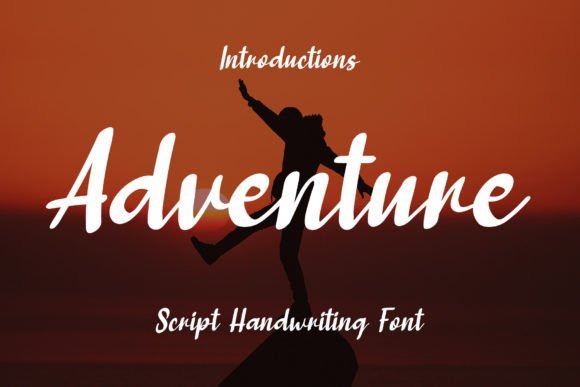
Where Creativity Meets Adventure
Have you ever been scribbling away in a journal, feeling the pen glide effortlessly across the page, and suddenly, a spark of inspiration strikes? It’s moments like these that remind us of the magic of handwritten typography. The Adventure Font is a digital interpretation of that same magic, bringing a charming and elegant touch to your designs.
Whether you’re crafting wedding invitations, designing business cards, or creating quotes, the Adventure Font is the perfect companion for your creative endeavors. Its unique blend of elegance and whimsy makes it a valuable asset for designers looking to add a personal touch to their work.
Key Features of Adventure Font
- Font Family: Adventure Font is a unique, hand-drawn font designed to evoke a sense of adventure and exploration.
- Size: The font comes in multiple weights, ranging from Thin (100) to Black (900), providing flexibility for various design applications.
- Unique Characteristics: Features a distinctive, handwritten style with irregular letterforms, making it perfect for creating a sense of personality and whimsy in designs.
- Kerning and Ligatures: Includes expertly crafted kerning and ligature pairs, ensuring smooth and seamless text rendering even at small font sizes.
Designer Review: Adventure Font
Overall, I think Adventure Font has some exciting qualities that make it a great choice for certain projects. ✨ The font’s unique blend of modern and vintage elements gives it a rugged, adventurous feel that’s perfect for outdoor or travel-related branding.
- ✨ Distinctive letterforms that add visual interest
- ✨ Wide range of weights and styles to choose from
- ✨ Excellent legibility, even at smaller font sizes
- ⚠️ May not be the best choice for text-heavy content, as the font can be overwhelming
- ⚠️ Some users may find the font’s vintage elements too kitschy or over-the-top
- ⚠️ Limited support for non-Latin scripts
Overall, I think Adventure Font is a great choice for projects that need a bold, adventurous feel. While it may not be the best choice for every project, it’s definitely worth considering for the right client or application.
Use Adventure Font to create eye-catching headlines and titles, add a sense of adventure to travel brochures and websites, or create a bold and exciting atmosphere in presentations and reports.
Alternatives to Adventure Font for Designers
Great Vibes Font is a modern, cursive font that exudes a sense of fun and adventure. It’s perfect for creating a playful and energetic atmosphere in designs, especially in social media graphics, posters, and advertising materials.
Compared to Adventure Font, Great Vibes Font is more stylized and has a more pronounced, flowing feel. While Adventure Font is more rustic and textured, Great Vibes Font is sleek and modern.
Playfair Display Font is a luxurious, elegant font that adds a touch of sophistication to designs. It’s ideal for creating high-end branding, invitations, and special occasion materials.
Compared to Adventure Font, Playfair Display Font is more refined and formal. While Adventure Font is bold and playful, Playfair Display Font is sophisticated and elegant.
Carolyna Pro Font is a modern, sans-serif font that’s perfect for creating clean and minimalist designs. It’s ideal for use in corporate branding, websites, and digital products.
Compared to Adventure Font, Carolyna Pro Font is more straightforward and functional. While Adventure Font is bold and attention-grabbing, Carolyna Pro Font is simple and understated.